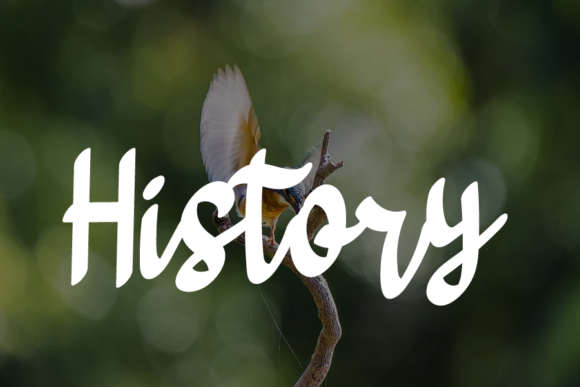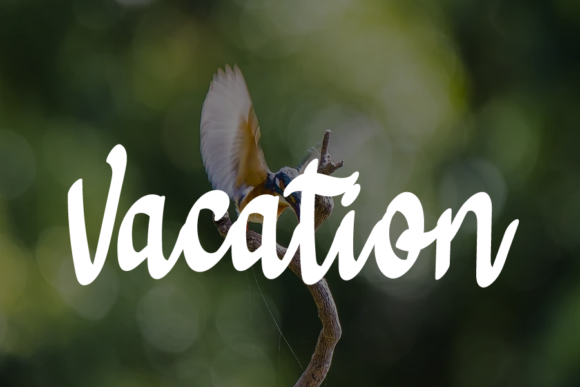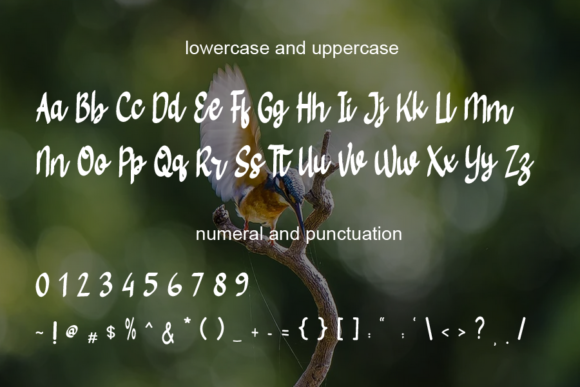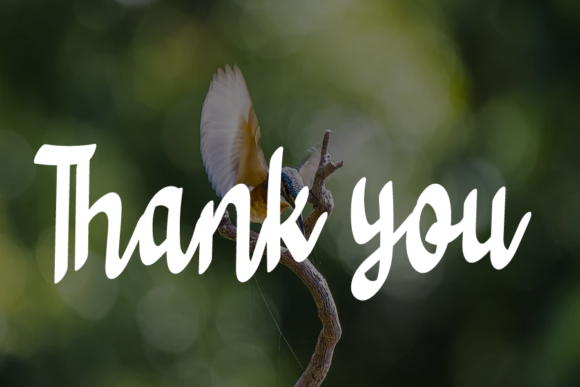
The Quest for the Perfect Font: Discovering Bestari
I still remember the time I was working on a wedding invitation project, and my client asked for a font that was elegant, sophisticated, and unique. I scoured the internet, tried countless fonts, but nothing seemed to fit the bill. That was until I stumbled upon Bestari, a delicate and well-balanced script font that stole my heart. In this article, I’ll share my experience with Bestari, its features, and how to make the most of it in your designs.
An Honest Review of Bestari
What I Love About Bestari
- ✨ Delicate and elegant strokes that add a touch of sophistication to any design
- ✅ Well-balanced letterforms that make it easy to read and recognize
- 💕 Supports OpenType features, glyphs, and stylistic alternates, giving you creative freedom
- 🎨 Perfect for a variety of design projects, including wedding invitations, thank you cards, quotes, greeting cards, logos, and business cards
While Bestari is an amazing font, there are a few things to keep in mind:
- 🤔 May not be suitable for body text due to its script nature and potential readability issues
- ⚠️ Limited use of uppercase letters, which can be a challenge for certain design projects
The Designer Inspiration Behind Bestari
Bestari’s design story is one of passion and creativity. Its creator drew inspiration from traditional calligraphy and modern script fonts to craft a unique and elegant typeface. With a focus on beauty and legibility, Bestari is perfect for designers seeking a sophisticated touch.
Q: What type of projects is Bestari suitable for?
A: Bestari is perfect for wedding invitations, thank you cards, quotes, greeting cards, logos, business cards, and any design project that requires a customized touch.
Q: Does Bestari support OpenType features?
A: Yes, Bestari supports OpenType features, glyphs, and stylistic alternates, giving you creative freedom to experiment with different designs.